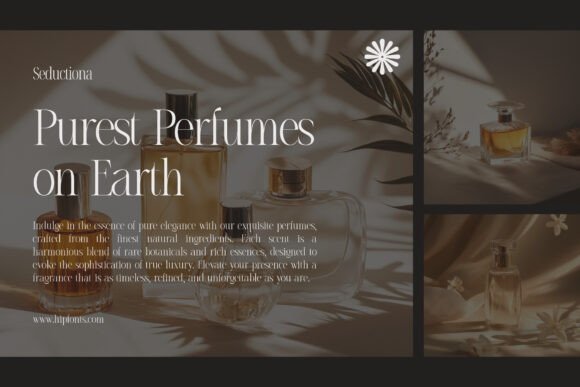
Seductiona Font
Introducing Seductiona, a breathtaking luxury typeface designed to captivate and inspire. With over 120 meticulously crafted ligatures, this typeface flows effortlessly, creating a seamless blend of sophistication and artistry. Its fluid strokes and graceful curves exude refinement, making it the perfect choice for fashion magazines, wedding stationery, high-end branding, luxurious packaging, and more.
Seductiona isn’t just a typeface—it’s an experience. Whether you’re crafting a couture logo, an opulent wedding invitation, or an editorial masterpiece, this font transforms every word into a statement of beauty. Its unparalleled versatility ensures that no two designs look the same, offering endless creative possibilities.
For those who demand nothing less than extraordinary, Seductiona is an absolute must-have. Elevate your typography with a font that whispers elegance and commands attention.